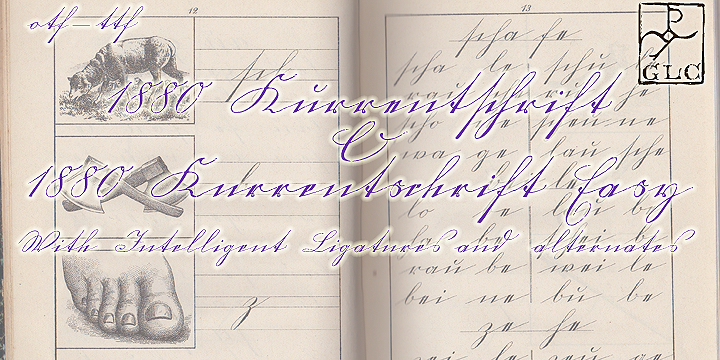
1880 Kurrentshrift Font is perfect for historical document reproduction, Germanic cultural heritage projects, vintage manuscript designs, academic paleography studies, traditional German brewing labels, heritage museum exhibitions, antique shop communications, and authentic period publications. This distinguished typeface excels in applications requiring historical authenticity and Germanic script tradition that captures the essence of 19th-century German handwriting through authentic cursive character and cultural heritage preservation.
What makes 1880 Kurrentshrift Font exciting is its authentic historical presence that perfectly captures the elegance and precision of traditional German cursive script from the late 19th century through meticulously researched letterforms. The font features traditional Kurrent construction with period-accurate proportions and authentic Germanic styling that instantly conveys themes of heritage, scholarly authority, and cultural authenticity perfect for projects requiring respectful historical representation and Germanic cultural preservation.
The 1880 Kurrentshrift Font family includes authentic cursive variations and historical styling elements with period-accurate characteristics, offering designers respectful tools for creating historically accurate Germanic compositions. The family provides consistent Kurrent aesthetic with varying traditional complexity for authentic cultural communications and heritage preservation projects requiring genuine Germanic script character and historical manuscript appeal.
1880 Kurrentshrift Font Free Download represents an exceptional opportunity for designers working on historical, academic, or Germanic cultural projects requiring authentic 19th-century script character and cultural sensitivity. Whether you're creating historical society materials, Germanic heritage communications, academic paleography publications, or traditional brewing branding, this font provides the authentic character needed for respectful historical representation and cultural heritage preservation.
The historically crafted letterforms of 1880 Kurrentshrift Font ensure cultural accuracy while maintaining readability for contemporary scholarly applications, making it suitable for both academic publications and cultural heritage presentations. This distinguished typeface combines Germanic script tradition with modern technical standards for outstanding performance in contemporary design environments requiring authentic historical character and traditional Kurrent presence.